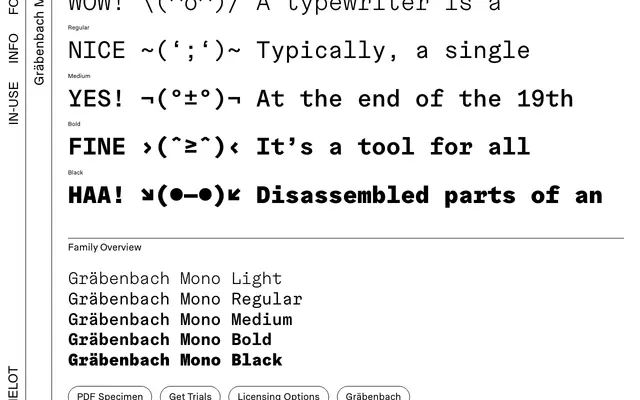
Gräbenbach Mono
Gräbenbach Mono specimen from Camelot
A monospaced grotesque by Wolfgang Schwärzler that fuses early grotesque sharpness with the warmth of brush-painted lettering across five weights.
Designed by Wolfgang Schwärzler, it belongs to the wider Gräbenbach family, which pairs four weights in roman and italic with this five-weight monospaced branch. The mono constraint is treated as a design driver rather than a concession, pushing the tension between digital precision and hand-drawn warmth to its limits. A generous OpenType feature set includes alternate single-storey a and g, a sans-serif mode and a slashed zero, making it adaptable for coding environments and editorial use alike.
A monospaced typeface drawing on early grotesque letterforms and brush-painted sign traditions; the mono constraint is central to the design rather than incidental.